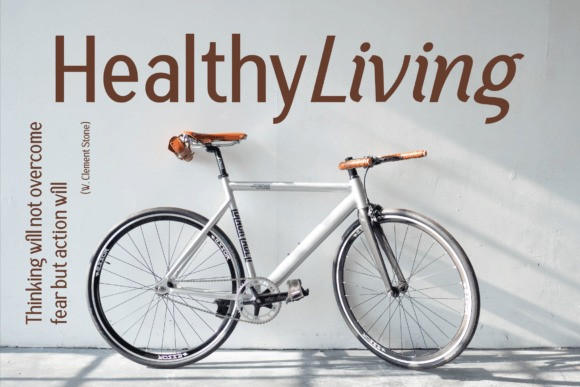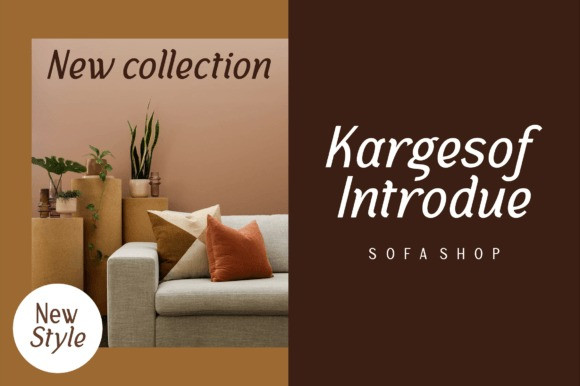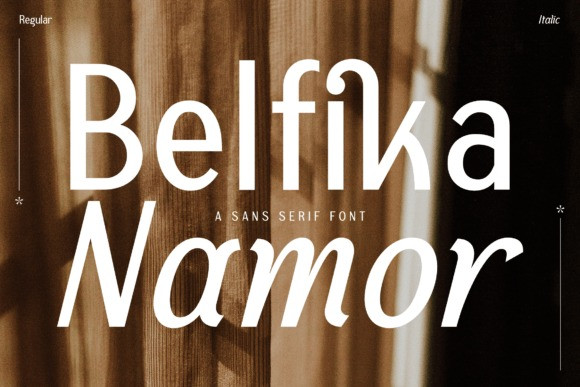
Belfika Namor Font
Belfika Namor Font, created by Storytype, A serif modern and classic typeface that has own unique style & modern look. This typeface is perfect for an elegant & luxury logo, book or movie title design, fashion brand, magazine, clothes, lettering, quotes, and so much more.